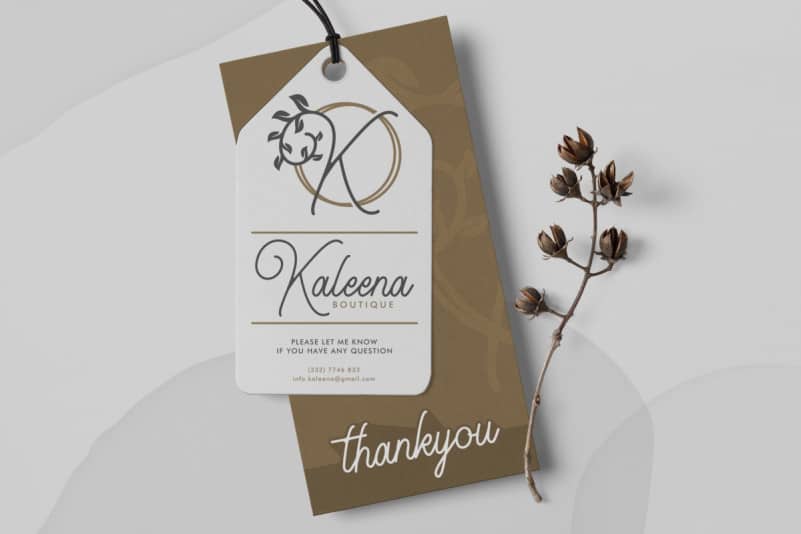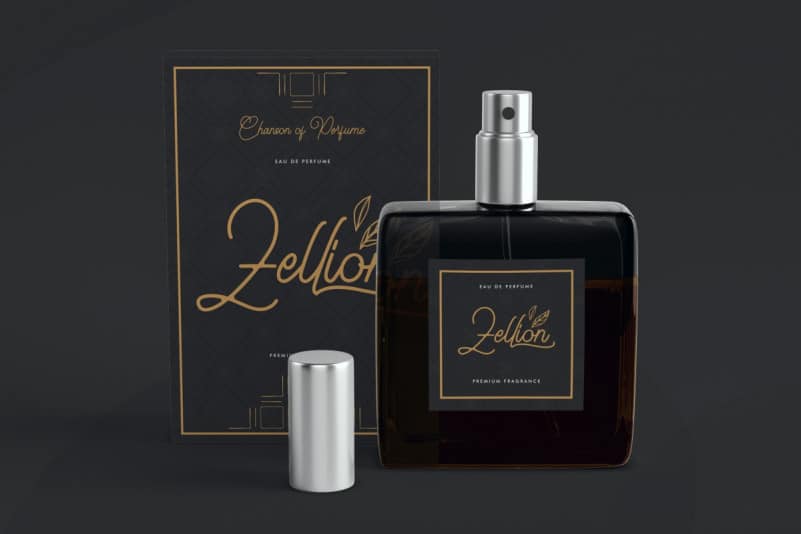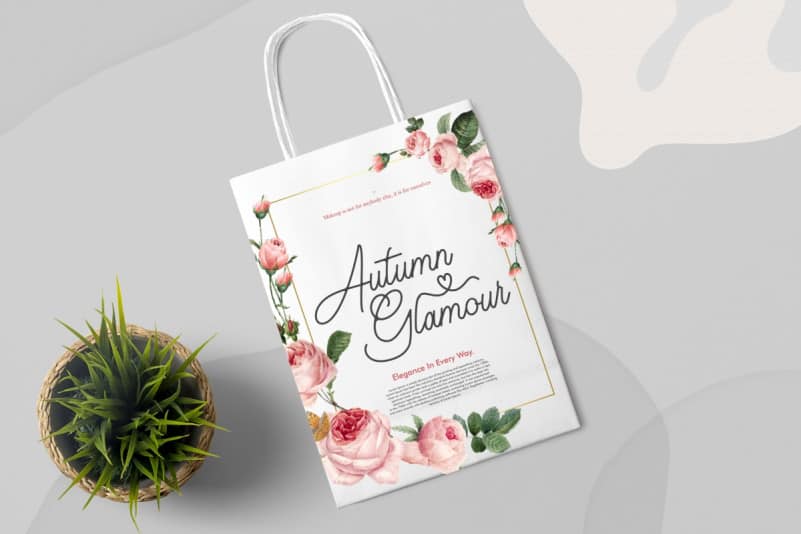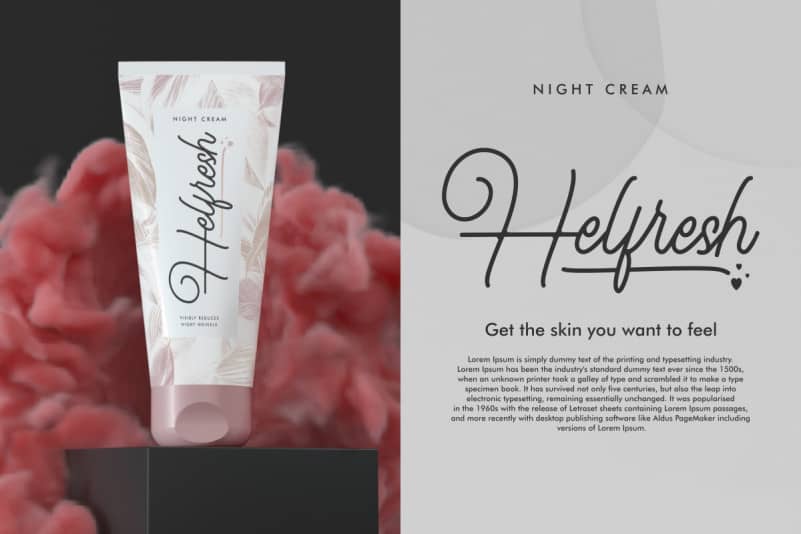
Loveliness Handwriting Font
Loveliness Handwriting Font is a beautiful, monoline classic retro Handwriting font. It has unique looks that are beautiful, retro, elegant, luxury, lettering, old school, vintage and sophisticated brush font.